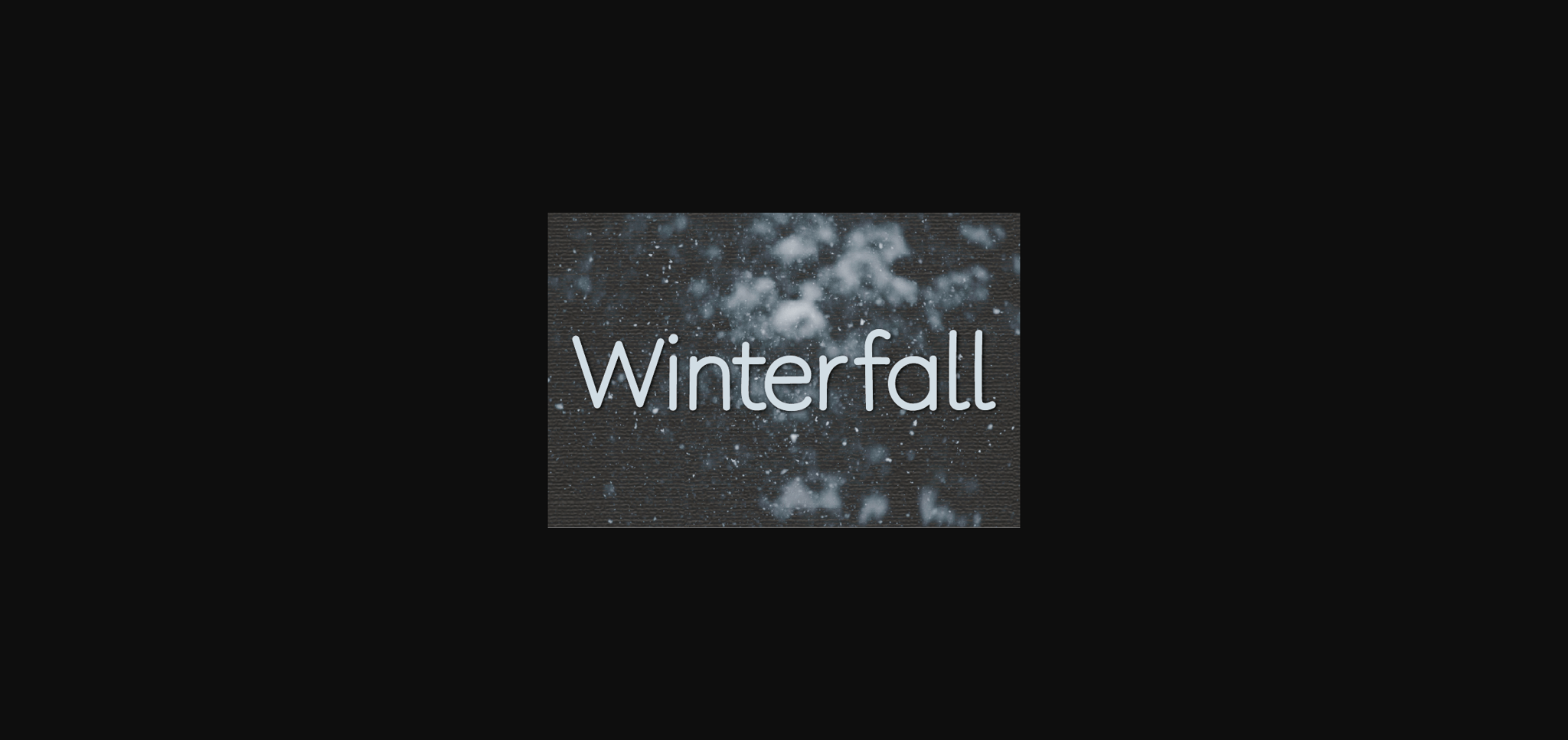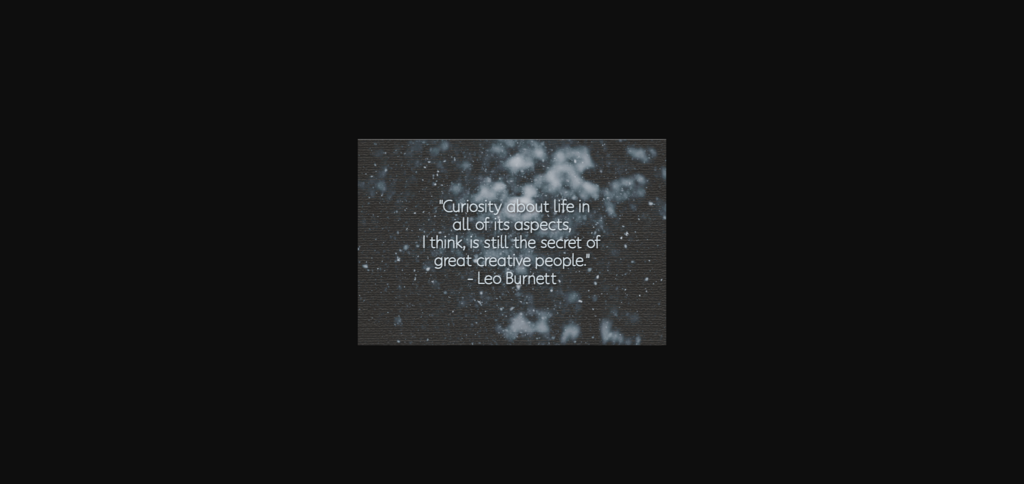
HomeSans Serif FontsWinterfall Font Sans Serif Fonts Winterfall Font FacebookXPinterestWhatsApp 1 of 6 ... Winterfall Font Poster 2... Winterfall Font Poster 3... Winterfall Font Poster 4... Winterfall Font Poster 5... Winterfall Font Poster 6... About Winterfall Font Winterfall is a casual and neat sans serif font that impresses through its natural and elegant style. This typeface will enhance your craft with little effort, making your product stand out from the competition. DOWNLOAD NOW People also explored Make a Wish Font Stylish Monogram Font Handmade Farmhouse Font Made Sea Font Aleque Font Milkman Font Mattedly Word Milk Font Sand & Castle Font 243 0 TagsWinterfall Font Previous articleFriendly FontNext articleTangerine Font LEAVE A REPLY Cancel reply Comment: Please enter your comment! Name:* Please enter your name here Email:* You have entered an incorrect email address! Please enter your email address here Website: Save my name, email, and website in this browser for the next time I comment. Personal Use Free Arnitta Callina Personal Use Free Read more about this font Beloved Script Personal Use Free Read more about this font Sunflower Personal Use Free Read more about this font Alinda Personal Use Free Read more about this font BLOG Fonts That Capture the Spirit of New York City New York City is more than just a place—it’s an experience, a rhythm, a visual language... Top 7 Google Fonts Alternatives for Faster and Privacy-Friendly Web Design (2025) To increase your work productivity, choose the most readable fonts. How to Install and Use Fonts on Windows, macOS, and Web Projects